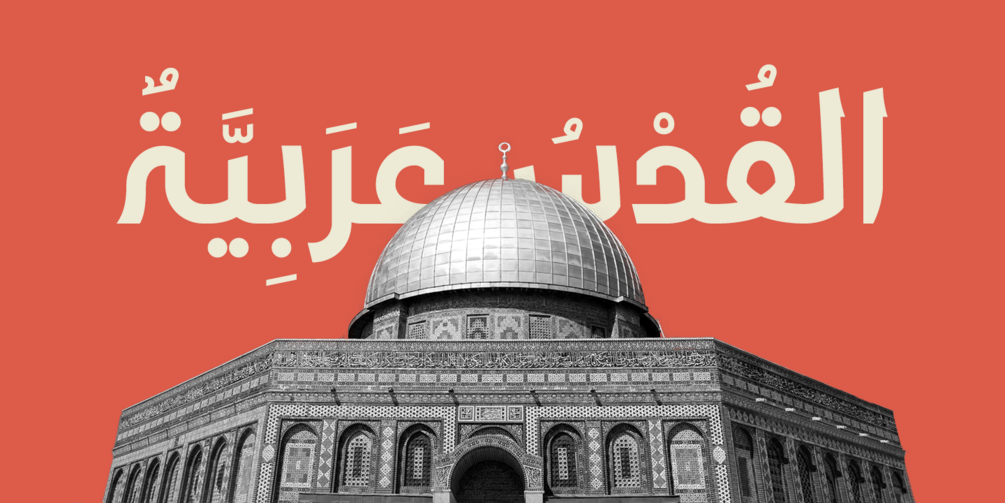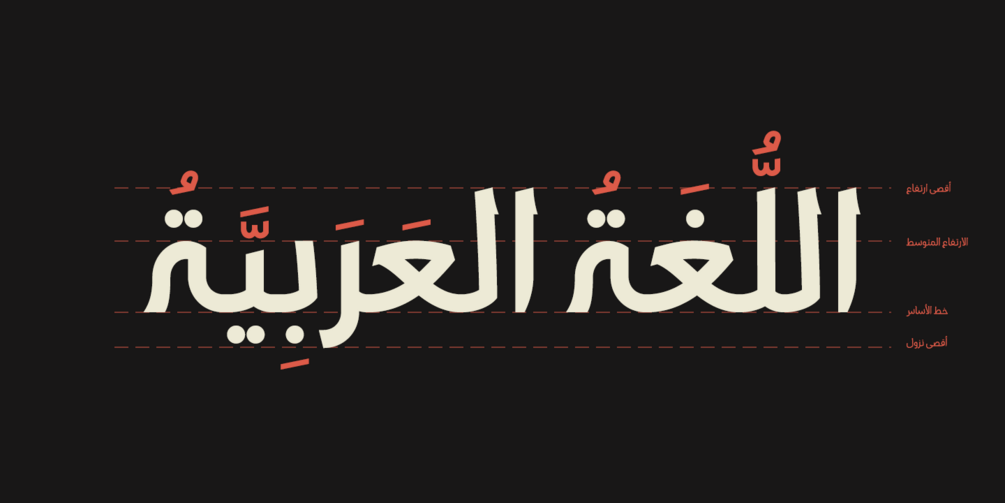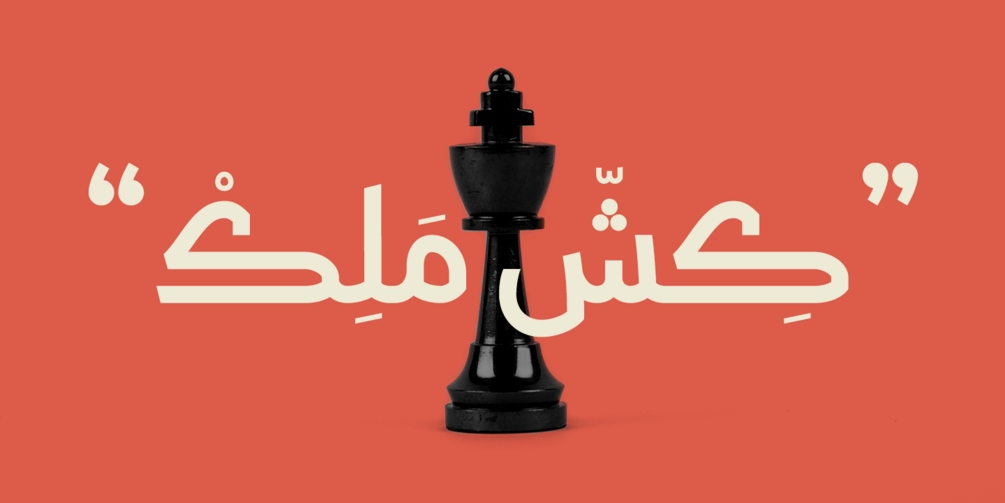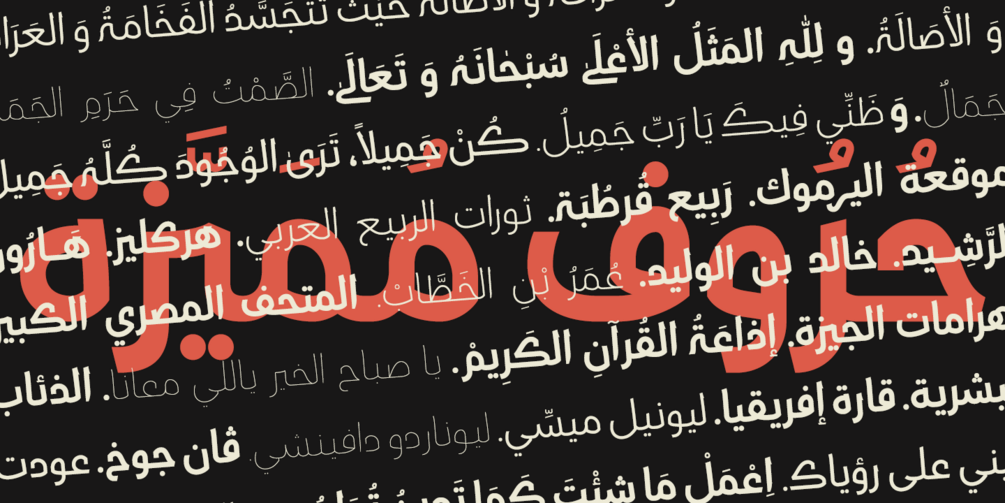
Gali Modern Typeface
Gali Modern typeface
Gali Modern is a modern typeface that explores the flexibility in contrast inspired by classic Arabic thuluth calligraphy, Designed especially for short texts, headlines, and quotes. Gali comes with 11 weights ranging from thin to heavy, comes with several OpenType features and many characters alternatives, special ligatures supporting Arabic, Farsi, and Urdu.
Sans Arabic typeface
Mahmoud Abdelghany
OpenType Features
Contextual Alternates, Discretionary Ligatures, Required Ligatures.